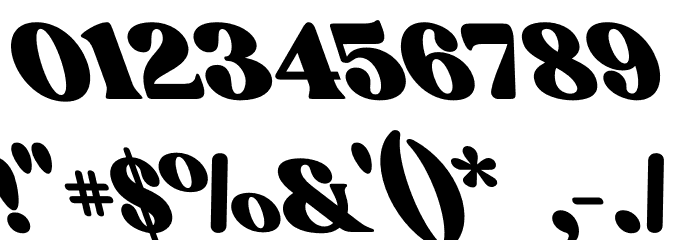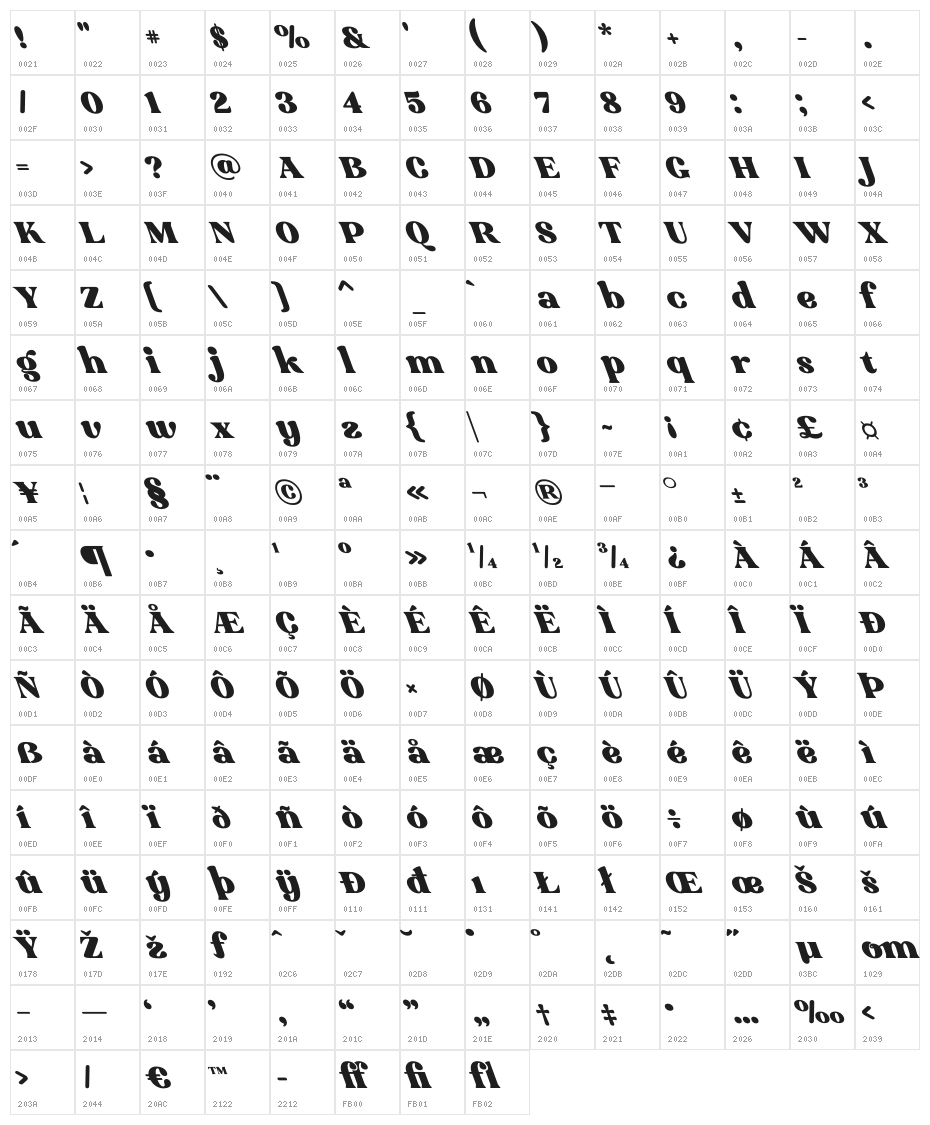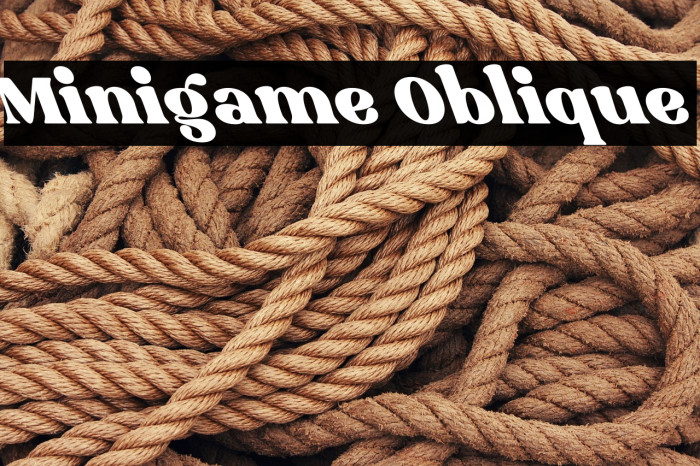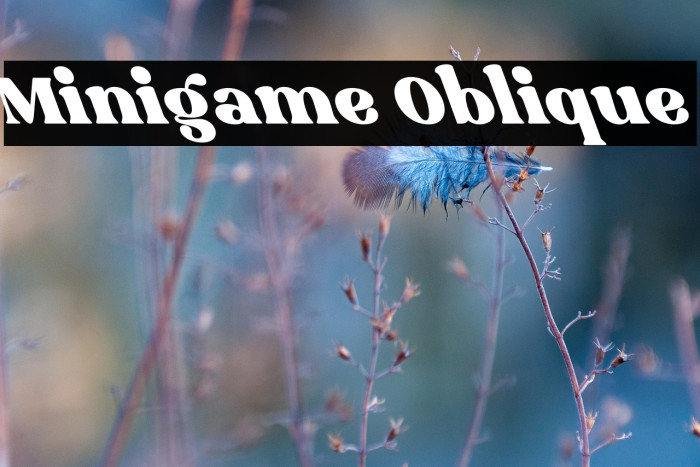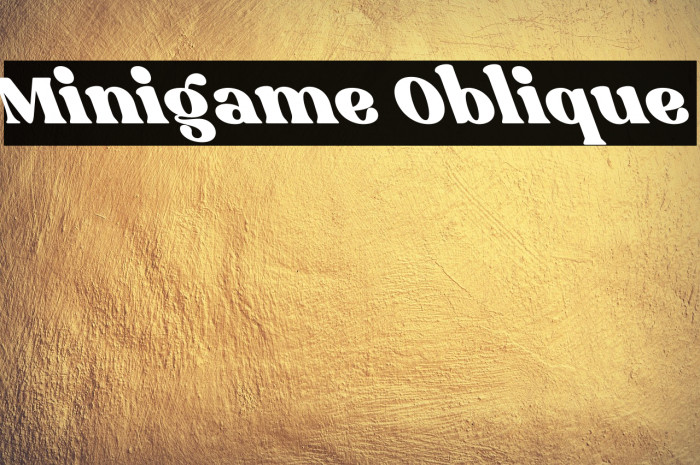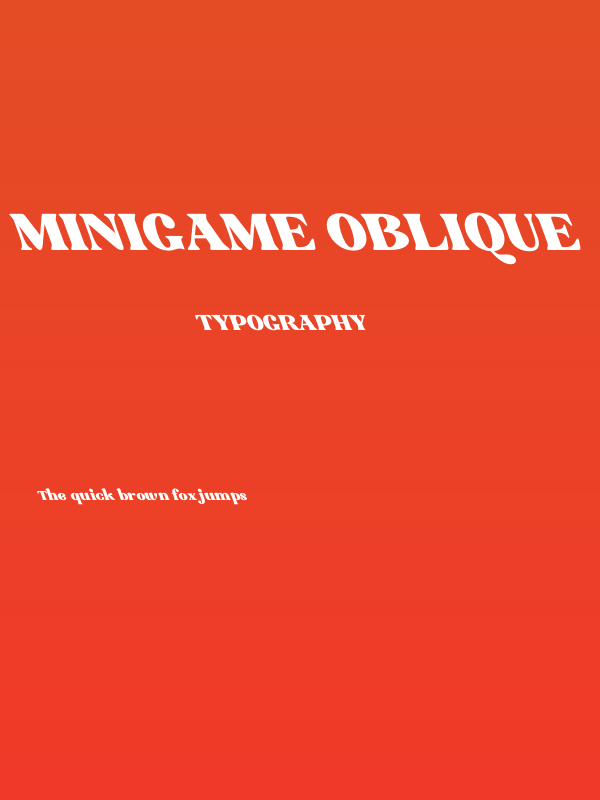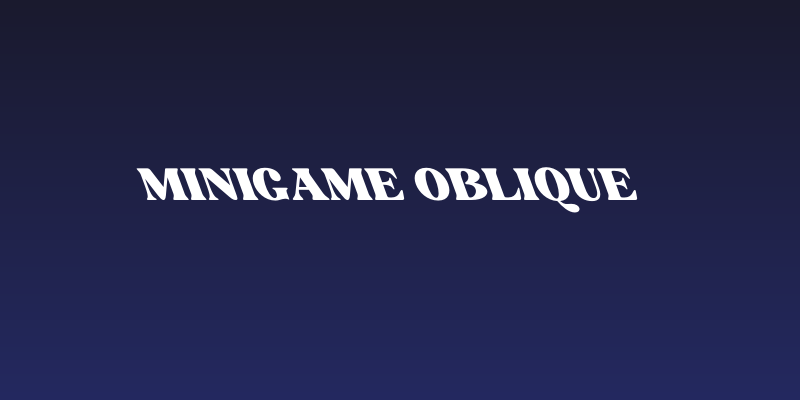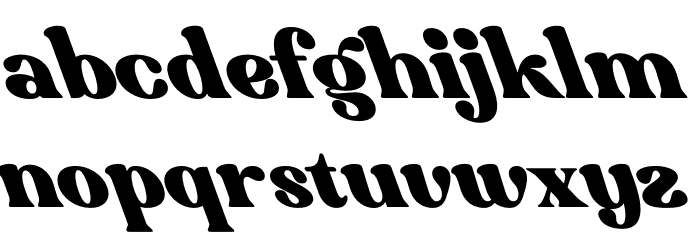
Minigame Oblique Font
Minigame Oblique Description
This font features a bold and dynamic style with a strong oblique slant, giving it a sense of movement and energy. The characters are thick and robust, with a high contrast between the thick and thin strokes, adding to its dramatic appearance. The serifs are pronounced and add a touch of elegance to the overall design. The uppercase letters are particularly striking, with a commanding presence that makes them ideal for headlines or titles. The lowercase letters maintain the same boldness and are easily legible, making them suitable for shorter text blocks. The numerals are consistent with the overall style, ensuring a cohesive look across different types of content. Special characters are included, allowing for versatile use in various contexts.
| Proposed Projects | Ideal for use in branding, advertising, and editorial design where a strong, impactful font is needed. |